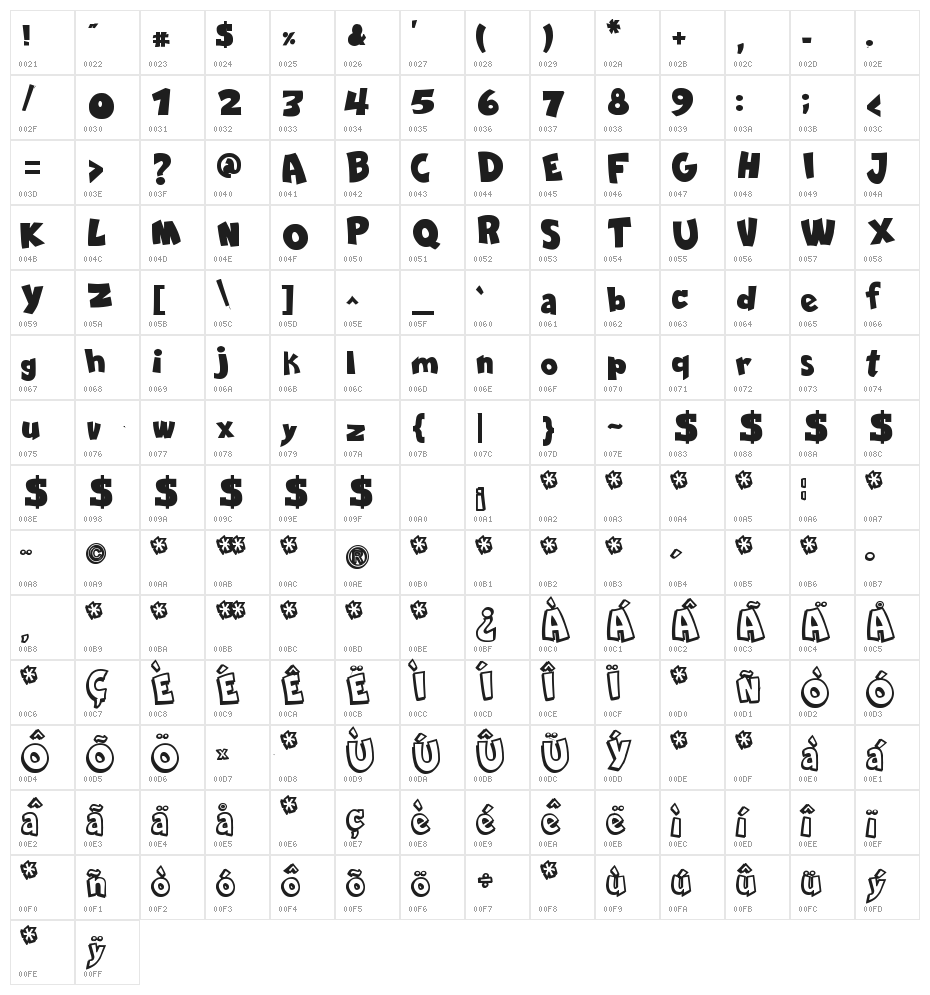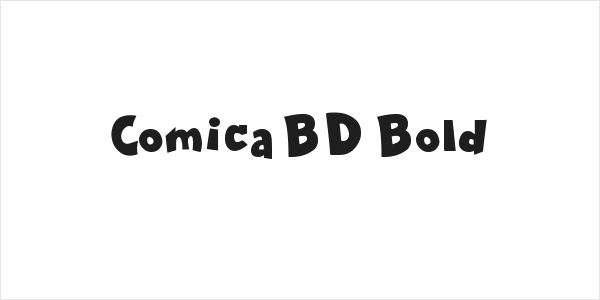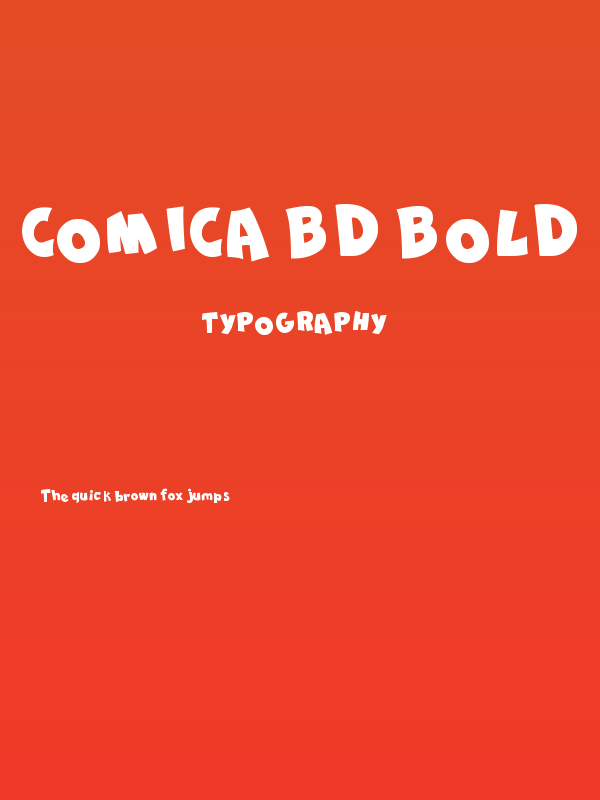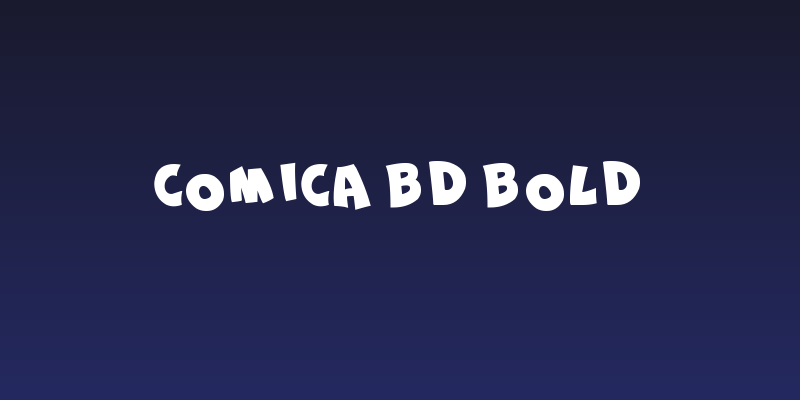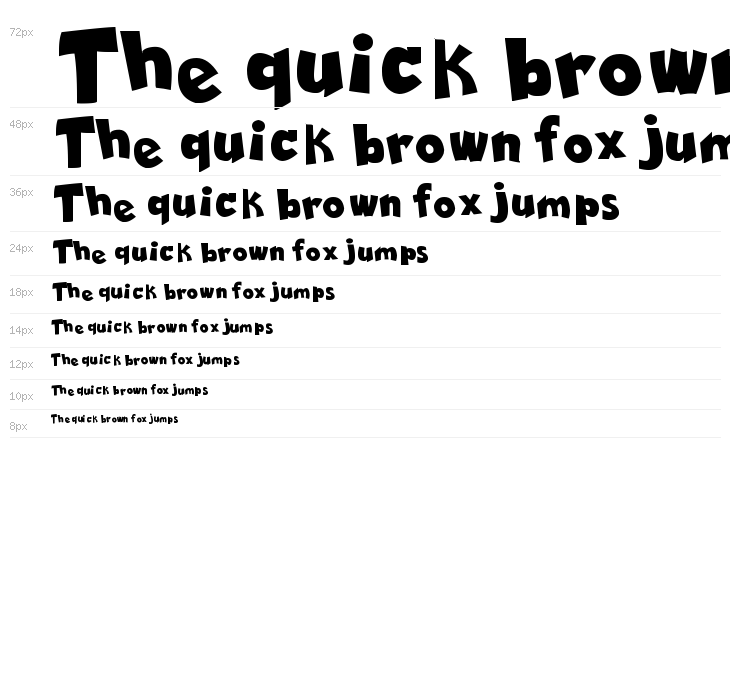
Comica BD Bold Font
Comica BD Bold Description
This playful and bold typeface features exaggerated, uneven strokes that give it a lively and dynamic appearance. The letters are slightly irregular, adding a whimsical touch that is reminiscent of comic book styles. The uppercase and lowercase characters maintain a consistent boldness, while the numbers and special characters are designed with the same energetic flair. This font's unique personality makes it stand out, perfect for projects that require a fun and informal tone.
| Overall Style | Playful, Comic |
| Proposed Projects | Ideal for comic books, children's books, playful branding, posters, and any design needing a fun, informal touch. |